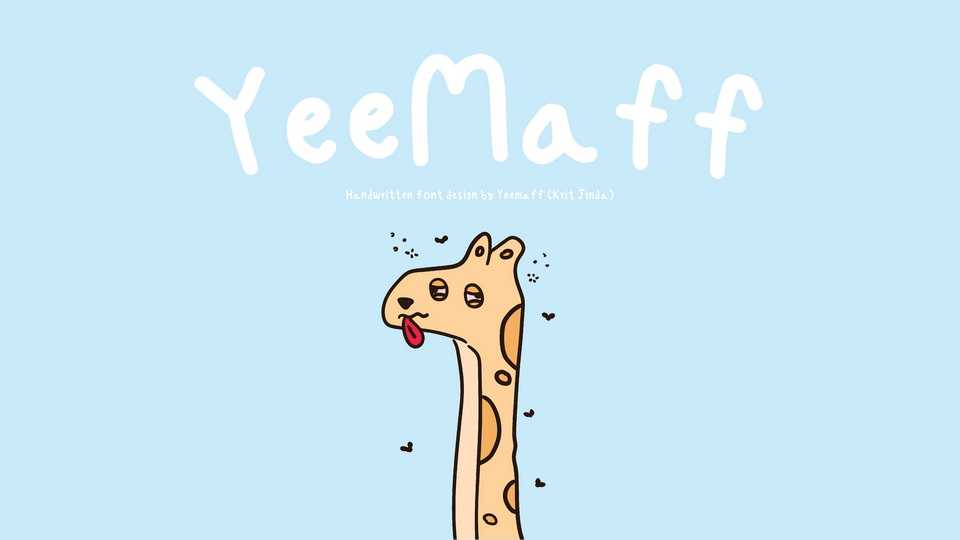
Download Yeemaff font, an NFT character inspired by giraffes Opensea. Yeemaff has a distinctive point is that it has a Polka Dot pattern all over the body.
Designer: Krit Jinda